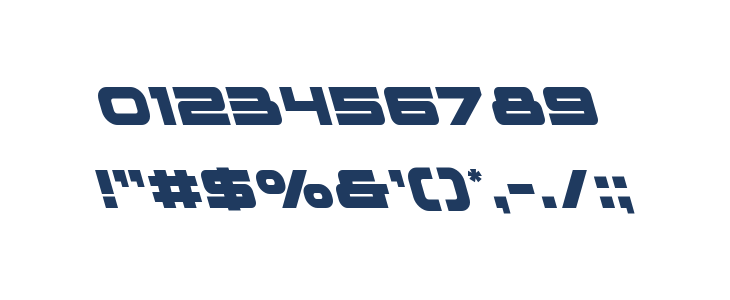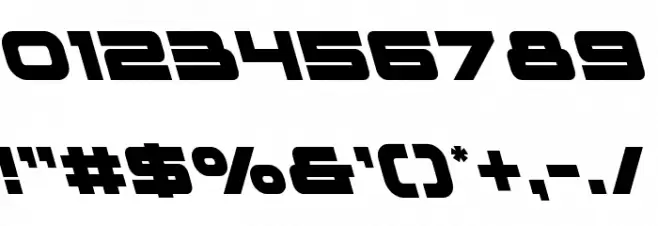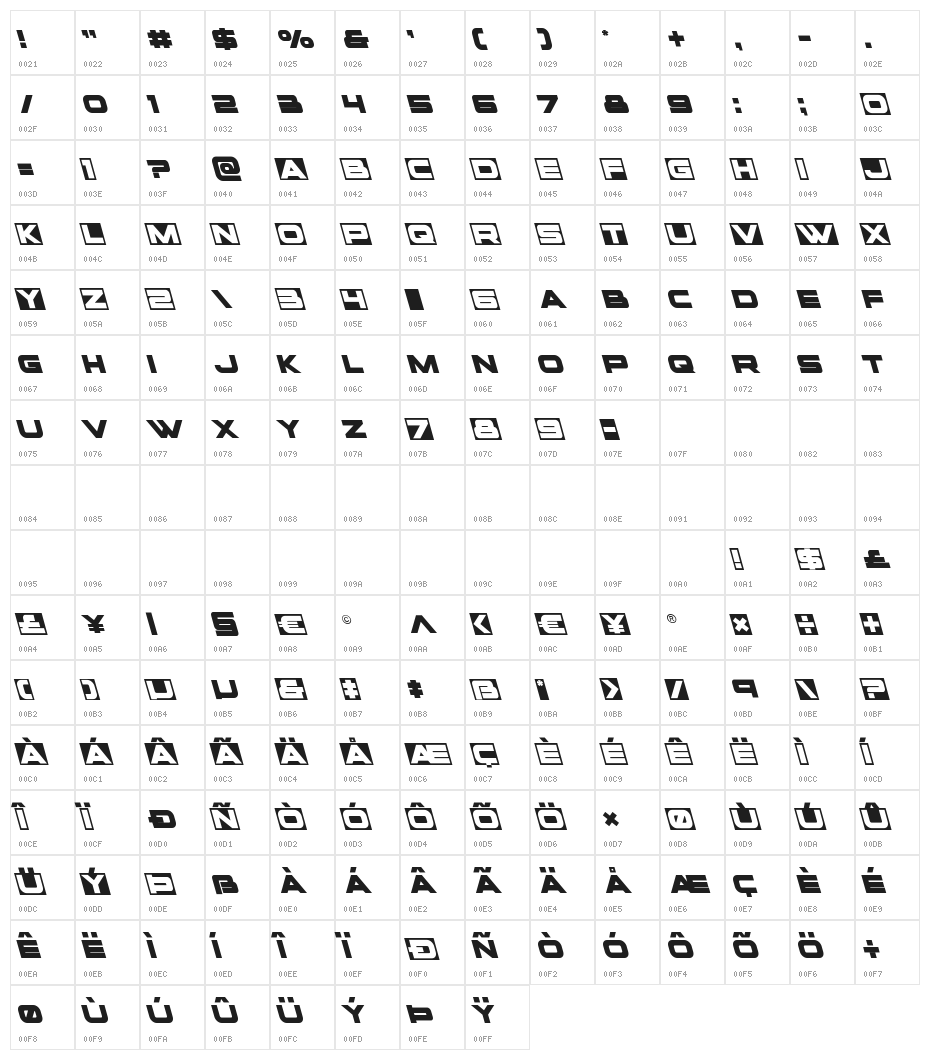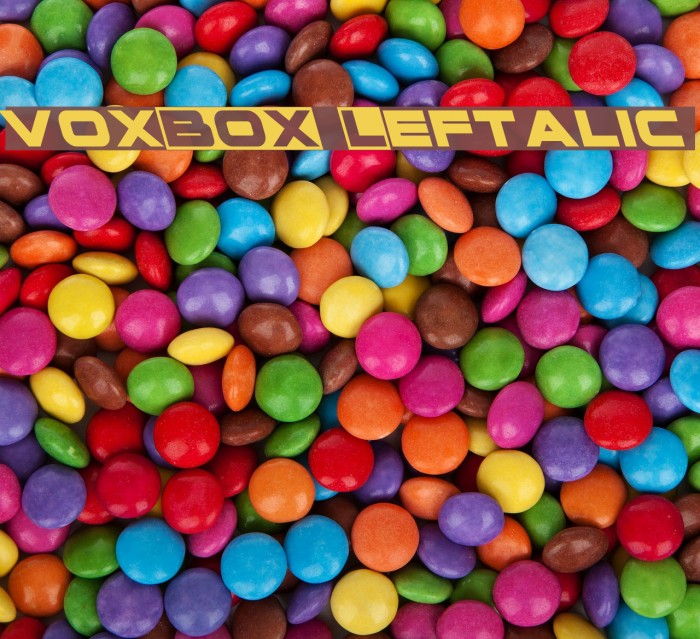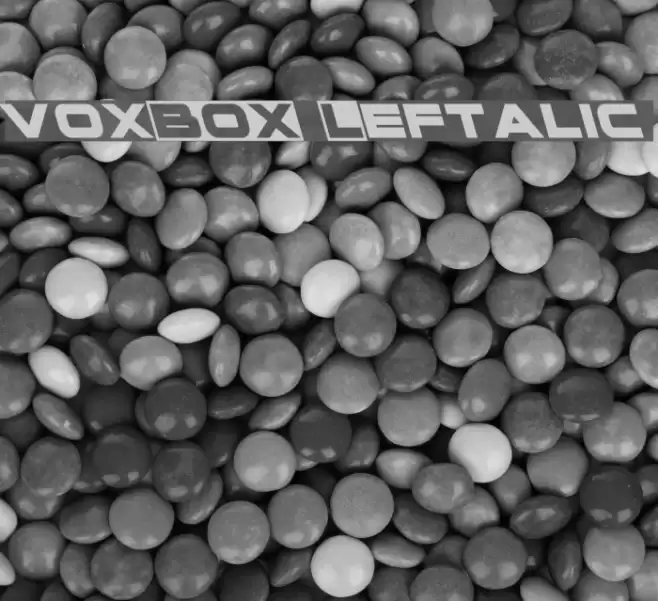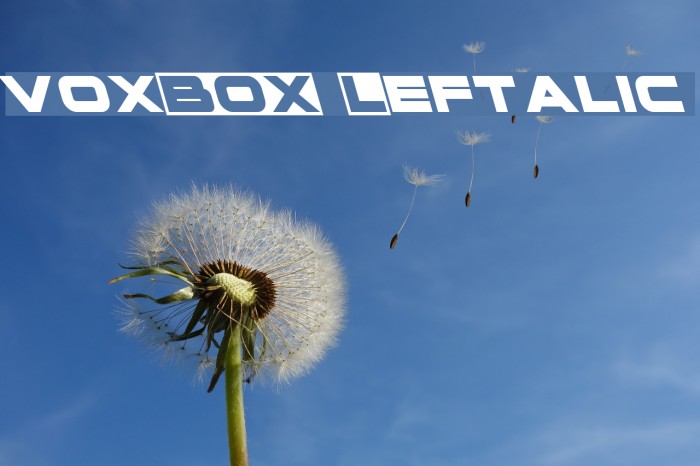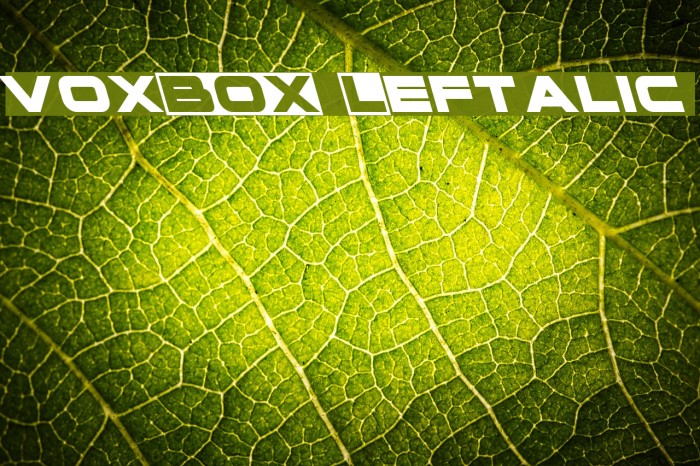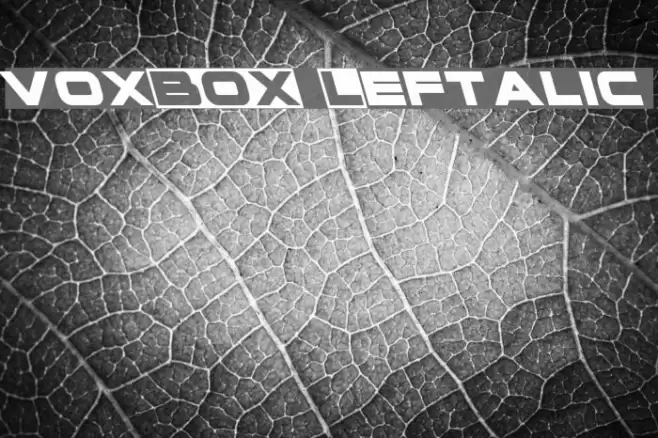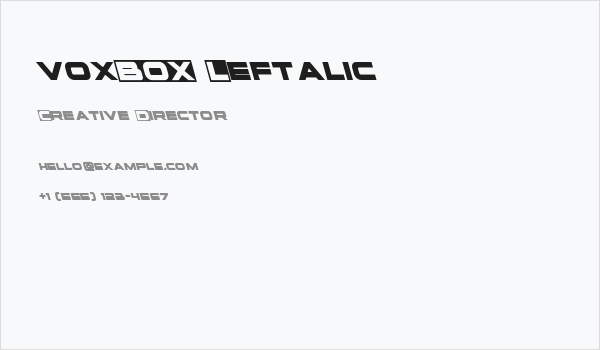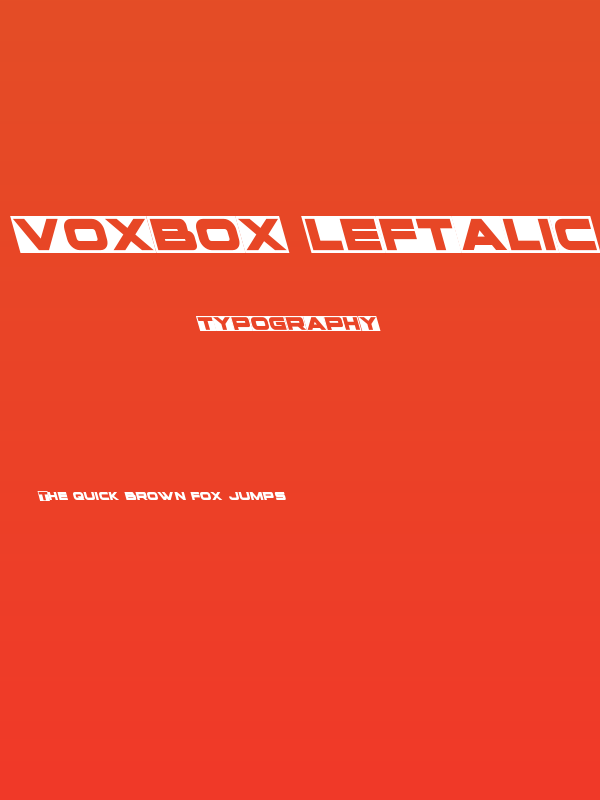
voxBOX Leftalic Font
voxBOX Leftalic Description
This font features a bold, futuristic design with a strong geometric influence. The characters are angular and dynamic, with a distinct slant that adds a sense of motion and speed. The uppercase letters are particularly striking, with sharp edges and a uniform width that creates a cohesive look. The numbers and special characters maintain this bold aesthetic, ensuring consistency across all elements. The font's unique style makes it ideal for projects that require a modern and impactful visual presence.
| Use Case | Logos, Headlines |
| Proposed Projects | Ideal for branding, sports team logos, video game titles, and sci-fi themed projects. |